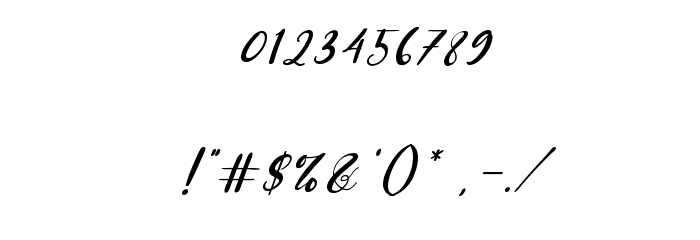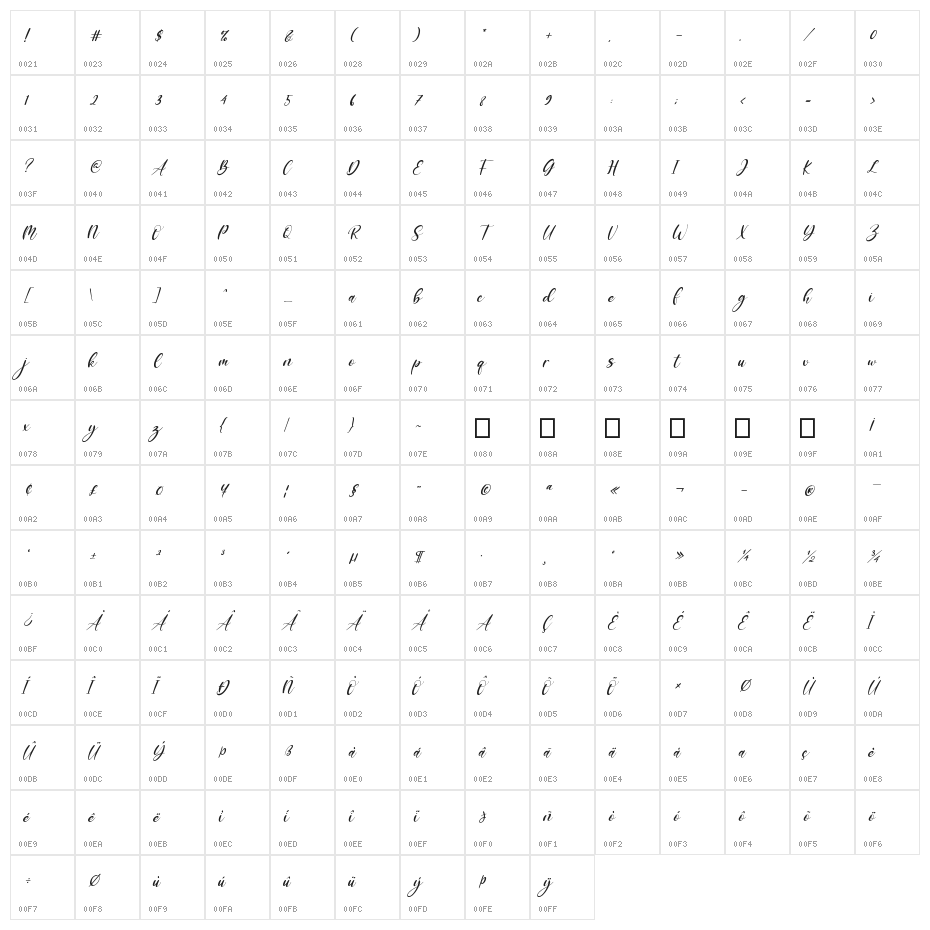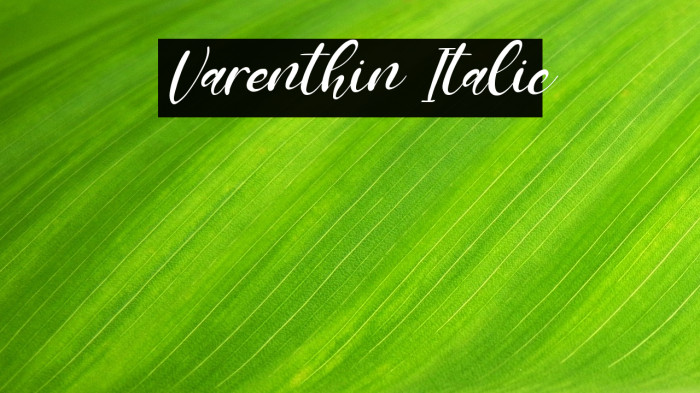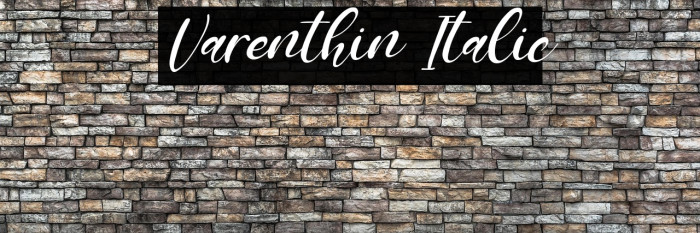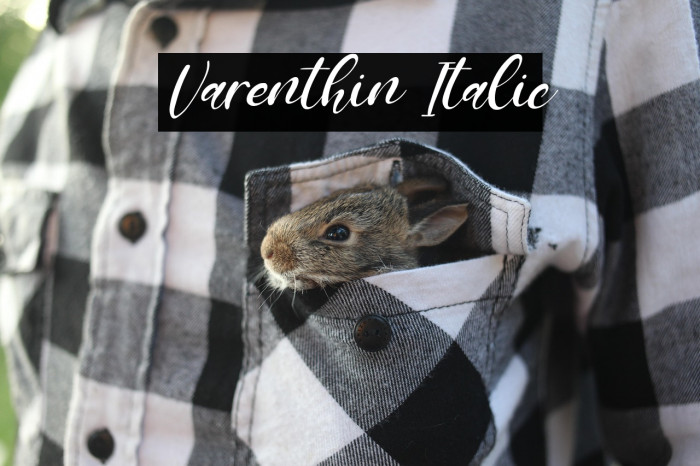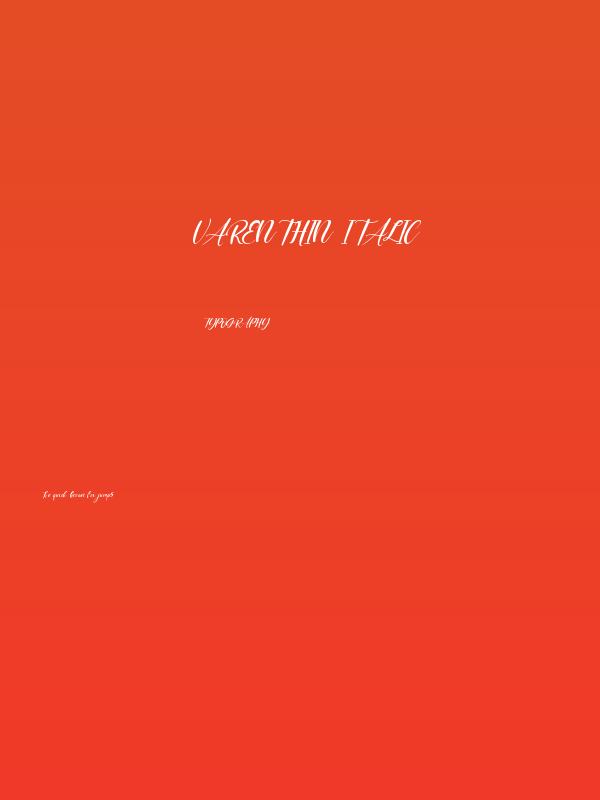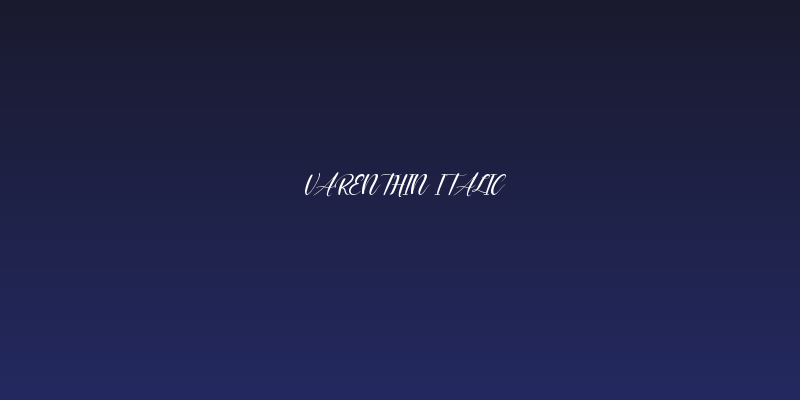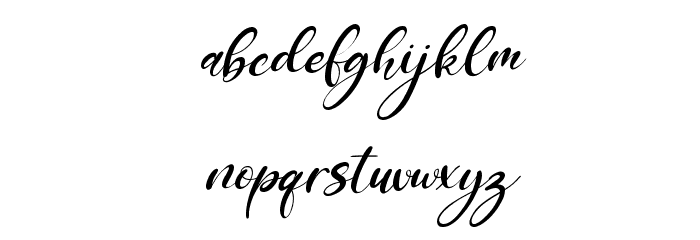
Varenthin Italic Font
Varenthin Italic Description
This font exudes elegance and sophistication with its flowing, cursive style. The characters are intricately designed, featuring smooth curves and delicate strokes that give it a handwritten appearance. The uppercase letters are bold and prominent, while the lowercase letters maintain a graceful continuity. The numerals and special characters are crafted with the same attention to detail, ensuring a cohesive look across all text. This font is ideal for projects that require a touch of class and refinement, such as wedding invitations, formal event programs, or luxury brand logos.
| Overall Style | Elegant, Sophisticated |
| Proposed Projects | Wedding invitations, luxury brand logos, formal event programs, elegant packaging. |